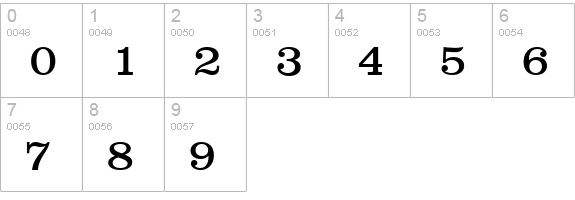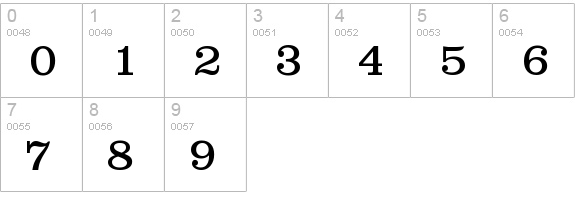
ClareSerial Font Details
ClareSerial font is a stunning display typeface that exudes elegance and sophistication. Its sleek and modern design makes it perfect for various design projects, from branding to editorial layouts. The font features clean lines and sharp angles that give it a contemporary feel, while still maintaining a touch of classic style. One of the best things about ClareSerial font is that it is completely free to download. You can easily access this beautiful font at FontsMarket.com, where you can use it for both personal and commercial projects without any restrictions. Whether you're designing a logo, creating a poster, or crafting a website, ClareSerial font is sure to make your text stand out and leave a lasting impression. Don't miss out on the opportunity to enhance your design work with this versatile and stylish font. Download ClareSerial font today and elevate your projects to new heights!